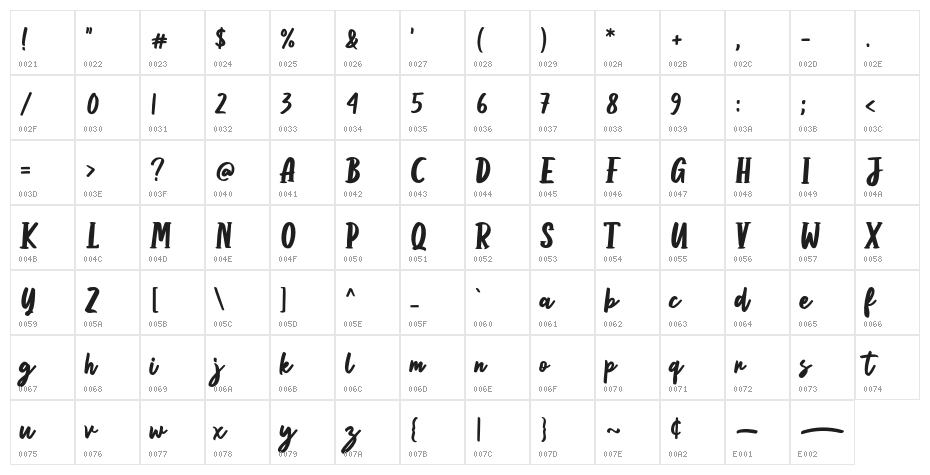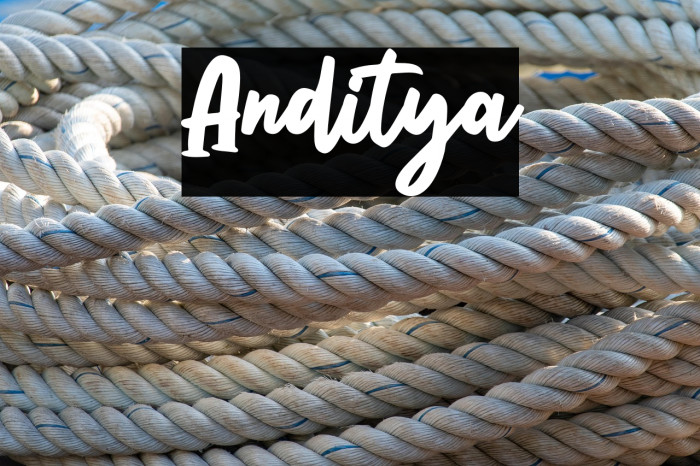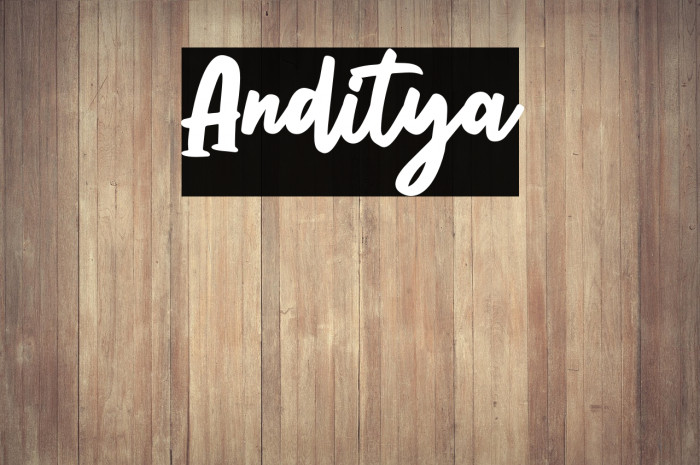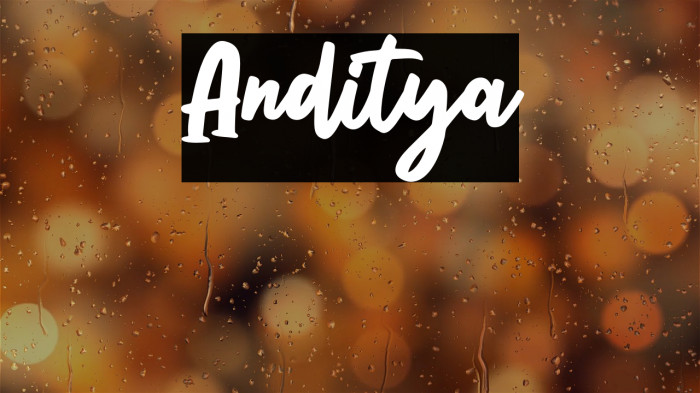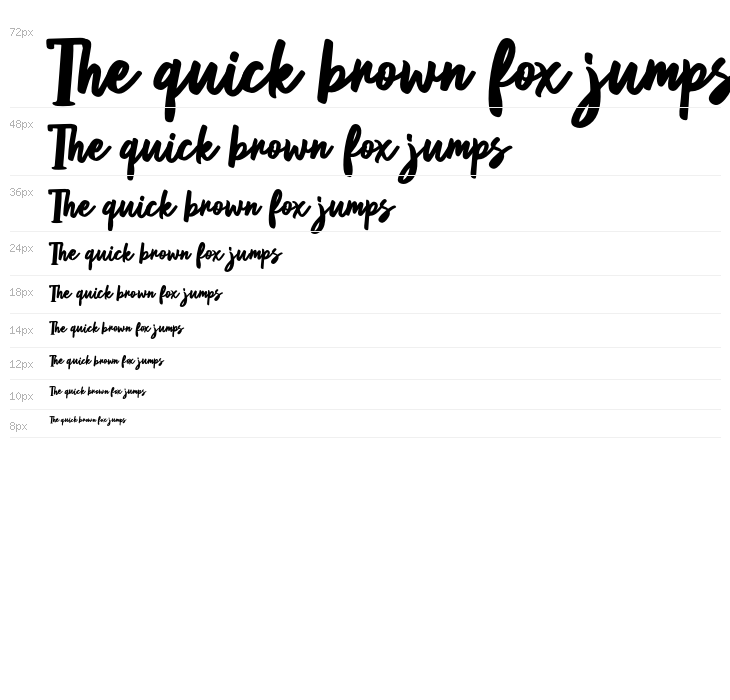
Anditya Font
Anditya Description
This font features a bold and expressive style with a handwritten appearance. The uppercase letters are tall and slightly condensed, giving a strong presence, while the lowercase letters have a more fluid and casual look, adding a touch of playfulness. The numbers are consistent with the overall style, maintaining the bold and dynamic feel. Special characters are well-integrated, ensuring versatility in various design contexts. The strokes are thick, providing a high contrast that enhances readability and impact. This font is ideal for projects that require a personal and energetic touch.
| Proposed Projects | Ideal for branding, posters, social media graphics, and any project needing a bold, personal touch. |